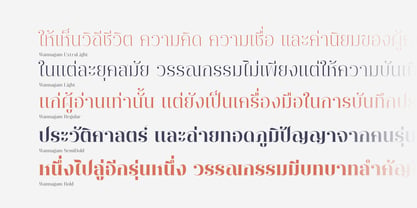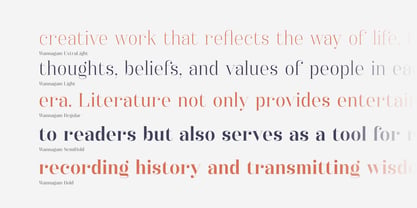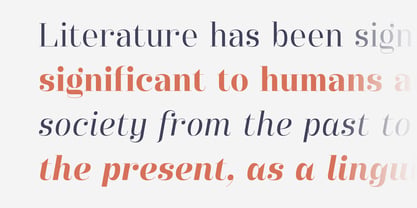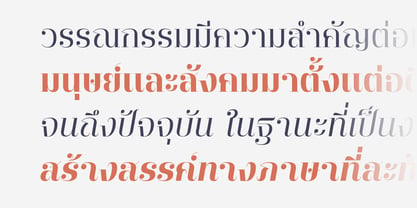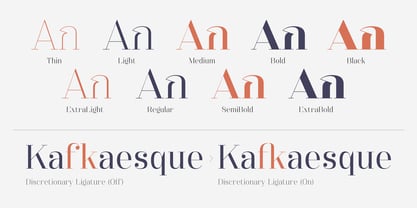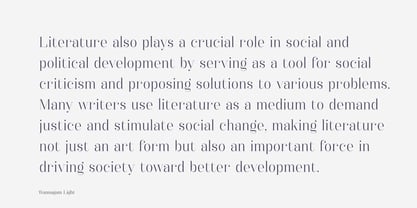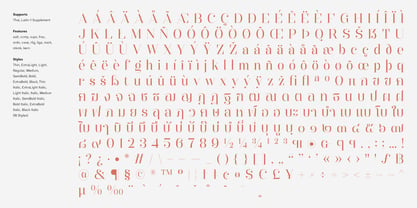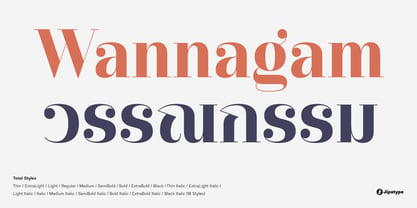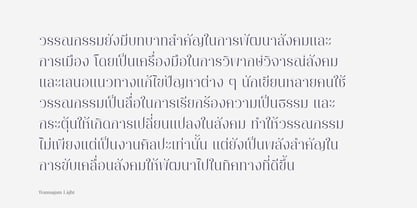
Wannagam
by Jipatype
The Wannagam Font Family was designed by Anupap Jaichumnan and published by Jipatype. Wannagam contains 18 styles and family package options. More about this family
Wannagam is a serif typeface inspired by the timeless elegance of the classic Didot font. Its meticulously crafted letterforms are well-balanced in proportion, exuding a sense of sophistication, strength, and reliability. At the same time, it retains a delicate and harmonious flow, making it an excellent choice for refined communication materials such as magazines, book covers, and high-end print publications. With 18 styles available, Wannagam supports both Thai and Latin-1 scripts, offering versatility and elegance for a wide range of design needs.
Designers: Anupap Jaichumnan
Foundry: Jipatype
About Jipatype
Jipatype is a type foundry founded and operated solely by Anupap Jaichamnarn, based in Bangkok, Thailand. Officially established in 2022, the foundry's journey began in 2019. The name "Jipatype" is derived from the Thai word “Jipatha” (จิปาถะ), meaning "miscellaneous" or "variety." This name reflects the diverse design concepts and influences that shape Jipatype’s versatile font collections.